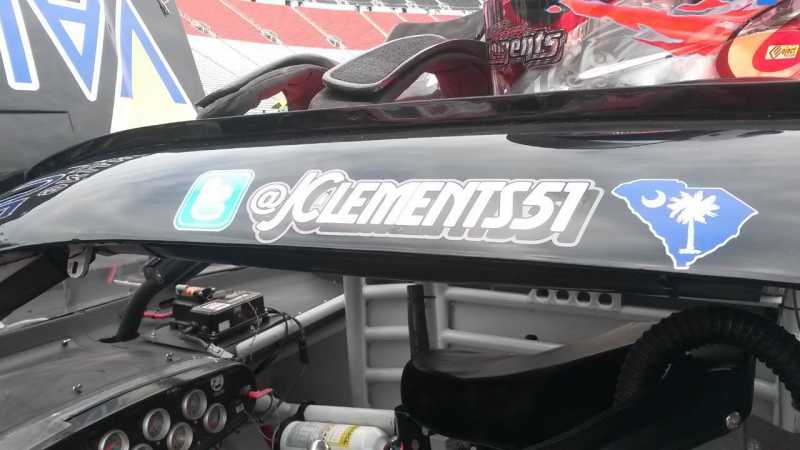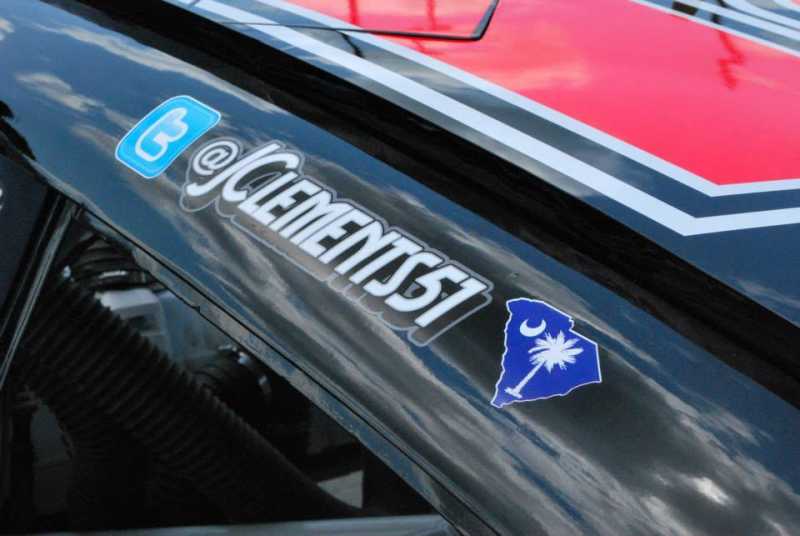
While you two guy's are here. Here is another one that is eluding me. It reminds me of a Nick Curtis font but I just can not find it. Appreciate any help.
I have tried with many different letter-combinations and methods, but I can't find something close... Sorry.
I suppose it's a common practice in the racing business to choose strange (rare) fonts or customize the fonts to make the logos unique and difficult to copy...
(The same thing happening in the athletic T-Shirts etc. business to avoid copying and sell more products)
:silly:Yea I've been through a lot of Nick Curtis fonts and many many of his has these shapes so I assume it's a heavily edited one. I was just hoping I would get lucky. :lol:Thanks again fivos for your time.